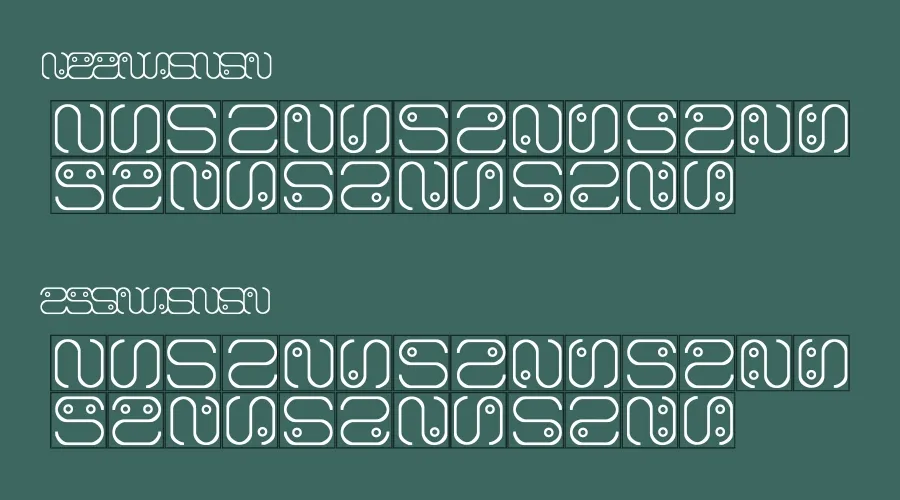
Alien Language Font
About Alien Language Font
Now, going to introduce to you the Alien Language Font. This font was designed by Dene Studios and looks like the cartoon texture family. It has an elegant and eye-catching texture look that is suitable for all your fun methods and tasks.
It contains various types of styles and weights such as bold, regular, and italic. You may utilize this unique texture with Robotic cyborg font and make attractive projects. The online generator tool of this texture will convert all your simple styles into stylish and modern shapes.
Due to its cartoonish texture look appearance, you may utilize it for short lines, because its texture is bold and stylish. It is not perfect for lengthy paragraphs but you can use it for logo designs, banners, headings, video captions, and many more.
This font is suitable for both printed and digital media. This font may also utilize for multiple other projects such as printings, newspapers, magazines, and cloth print.
Name Alien Language Font
Designer Dene Studios
Style Cartoon
• Alien Language Bold
• Alien Language Regular
Who is the designer of the Alien Language Font?
This font was designed by a very famous typographic developer Dene Studios and looks like the cartoon texture family.
What type of font is Alien Language Font?
It has an elegant and eye-catching texture look that is suitable for all your fun methods and tasks. It contains various types of styles and weights.
Where Can I utilize the Alien Language Font?
This font is suitable for both printed and digital media. This font may also utilize for multiple other projects such as printing, newspapers, and many more.